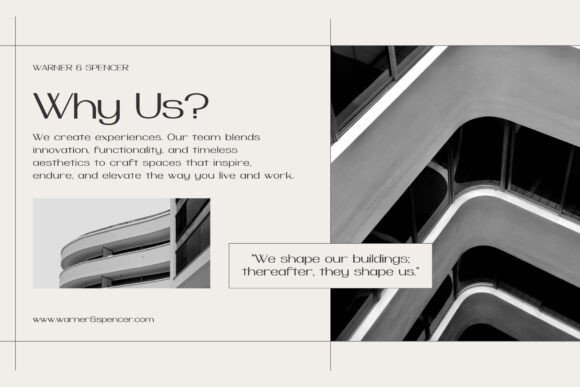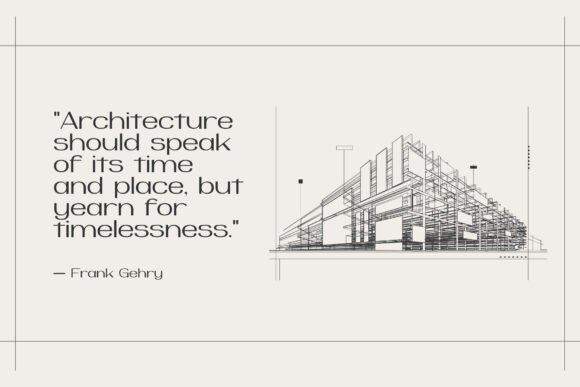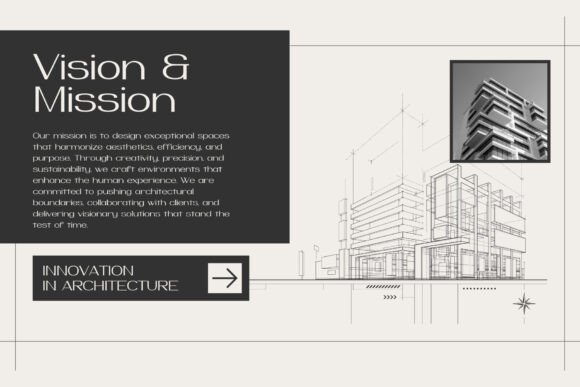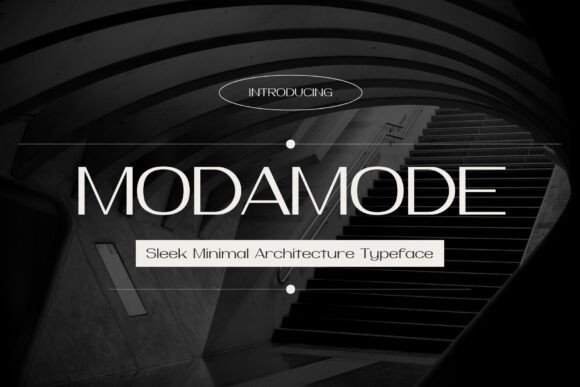
Introduction to Modamode Font
Introducing Modamode, a refined typeface where modern architecture meets high fashion.
With its sleek, minimalistic design and precise letterforms, Modamode embodies the sophistication of contemporary structures while exuding an effortless sense of luxury Designed for those who appreciate clean aesthetics and timeless elegance, this typeface is perfect for architecture firms, fashion brands, upscale editorials, and high-end branding projects.
Key Features of Modamode Font
Why Choose Modamode Font?
Modamode Font offers exceptional quality and versatility, making it a valuable addition to your design toolkit. Whether you’re creating for personal projects or commercial use, Modamode Font delivers professional results.